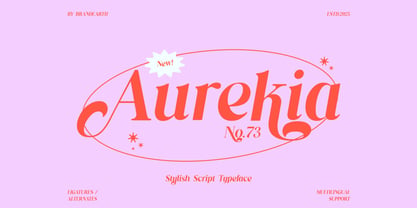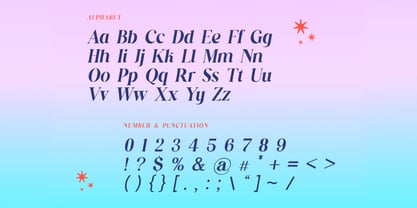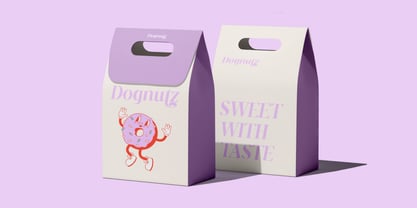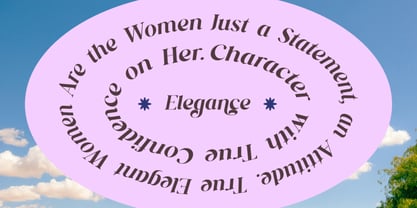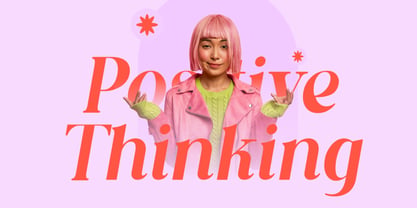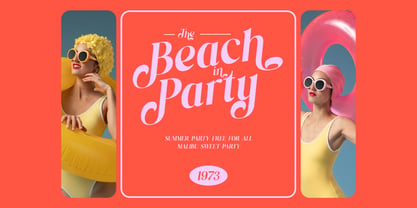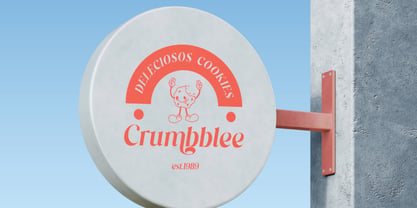
Aurekia
by Brandearth
The Aurekia Font Family was designed by Moch Rasjid Wiyono and published by Brandearth. Aurekia contains 1 styles. More about this family
Aurekia is a stylish modern serif typeface designed to bring elegance, charm, and personality to contemporary design projects. With its refined serif structure, flowing curves, and expressive letterforms, Aurekia creates a sophisticated typographic presence while maintaining excellent readability. Aurekia is designed for projects that need stylish elegance and strong visual identity. The expressive curves, refined serifs, and ligature features make it perfect for fashion branding, editorial layouts, luxury packaging, lifestyle magazines, social media graphics, and event promotions.